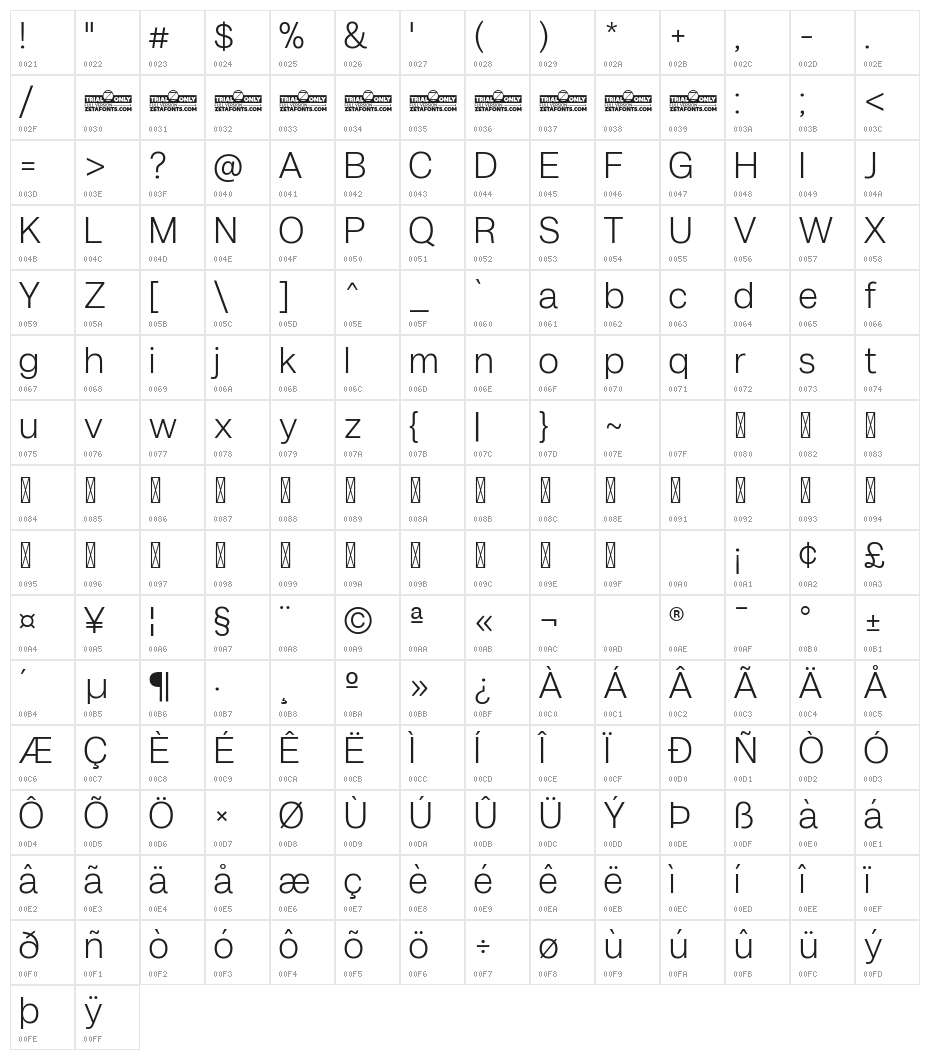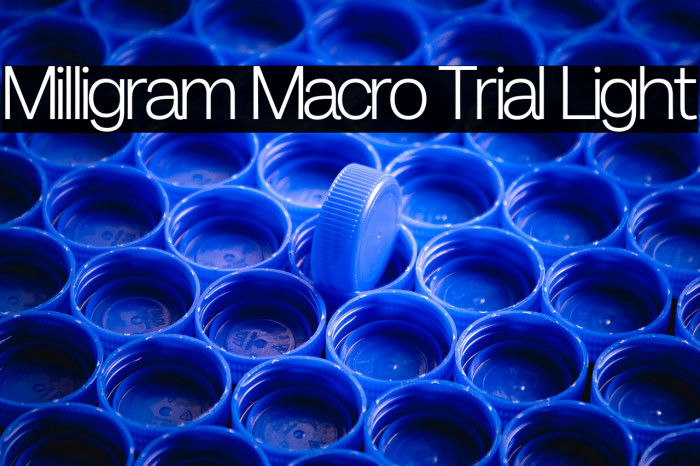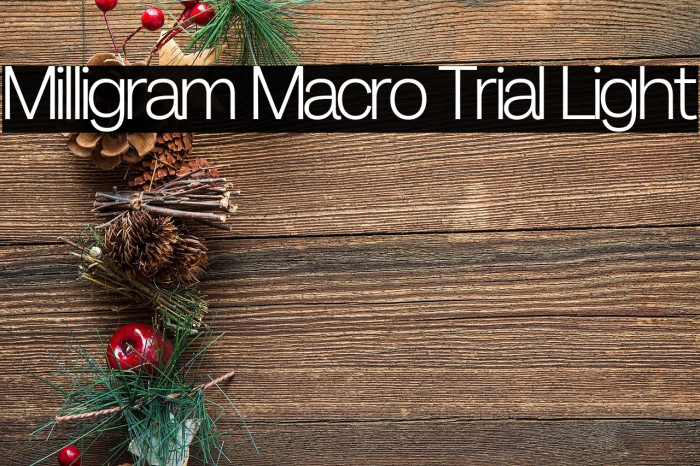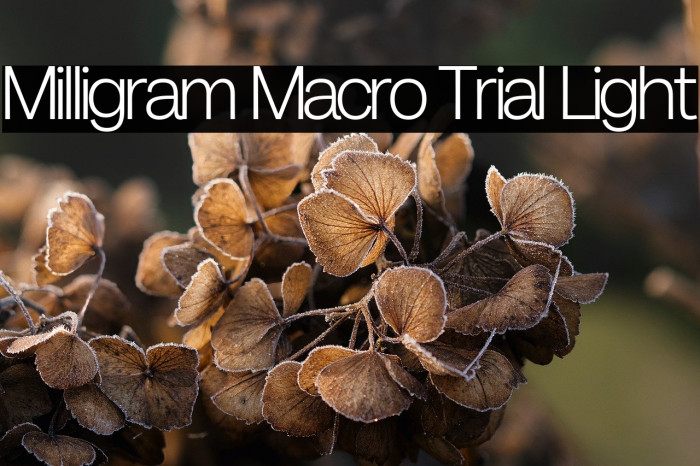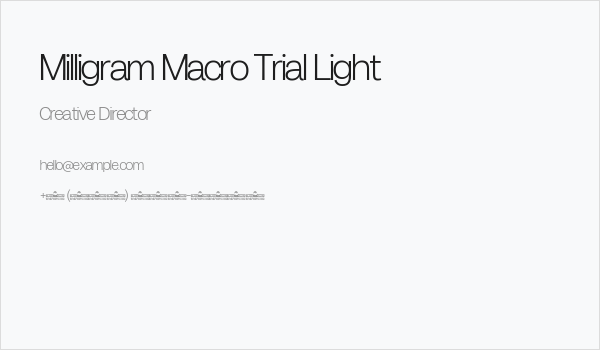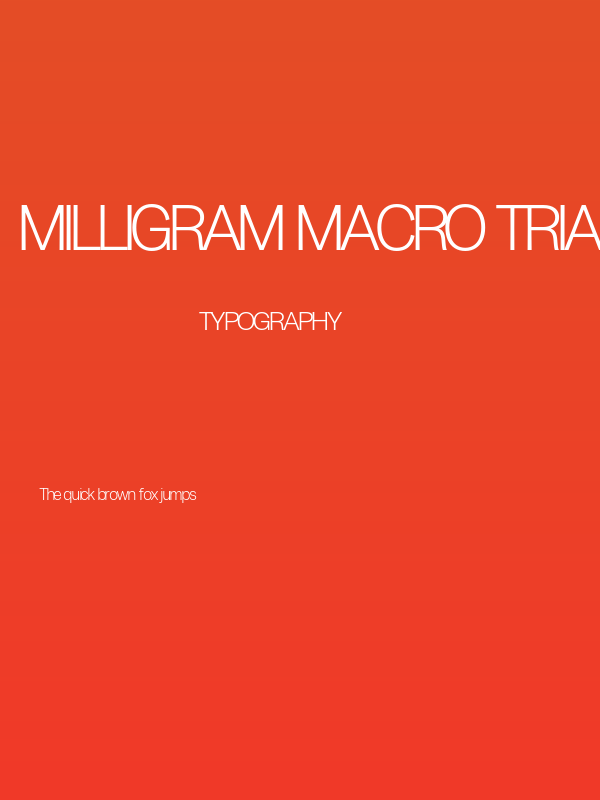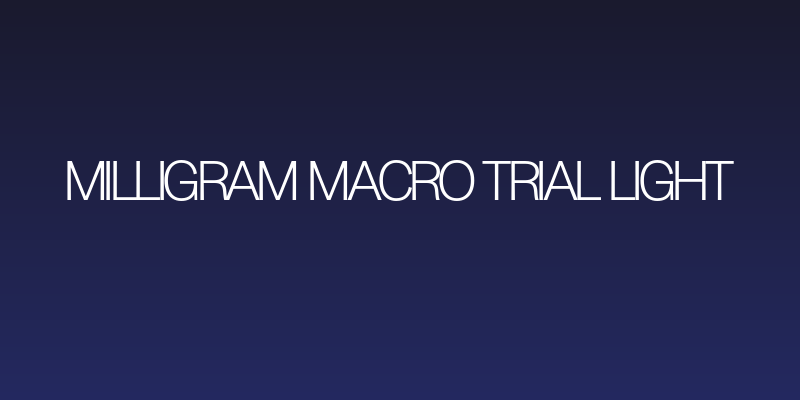
Milligram Macro Trial Light Font
Milligram Macro Trial Light Description
This font features a clean and modern sans-serif design with a light weight, offering a sleek and minimalist aesthetic. The characters are evenly spaced, providing a balanced and harmonious appearance. The uppercase and lowercase letters maintain a consistent style, with smooth curves and straight lines that enhance readability. The numerals and special characters are designed to match the overall style, ensuring a cohesive look across all text elements. This font is versatile, suitable for a variety of design projects that require a contemporary and professional touch.